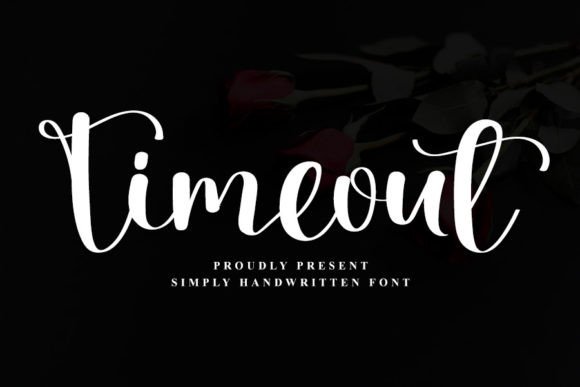
Prepare to be swept off your feet by Timeout Font - a resplendent script font designed to captivate and enchant your creative endeavors. This awe-inspiring font is meticulously crafted to elevate your designs with an air of sophistication and elegance, making it an indispensable tool for any discerning graphic designer.
Immerse yourself in the boundless possibilities that await with Timeout Font. Its swirling lines and graceful curves exude a charm that is both timeless and contemporary, making it the perfect choice for a wide range of projects. Whether you're designing flyers, wedding invitations, logos, banners, or social media posts, Timeout Font will add a touch of magic to every creation.
Imagine the joy of crafting exquisite wedding invitation cards with Timeout Font. Its elegant script will evoke a sense of romance and enchantment, setting the perfect tone for your special day. The intricate details and flowing lines will captivate your guests, creating a lasting impression that they will cherish forever.
Unleash your creativity and let your imagination soar as you explore the endless possibilities of Timeout Font. Its versatility shines through in every application, lending itself effortlessly to logos, banners, and even social media posts. With Timeout Font, your designs will radiate a captivating allure that will leave a lasting impression on your audience.